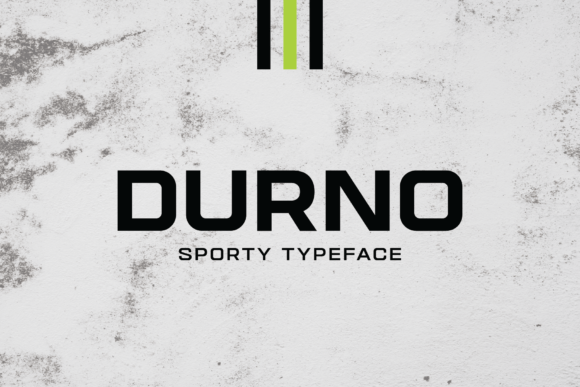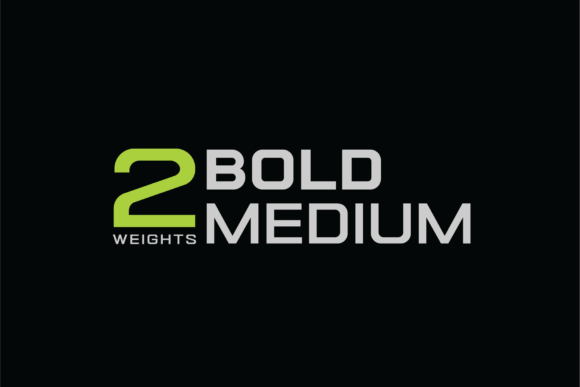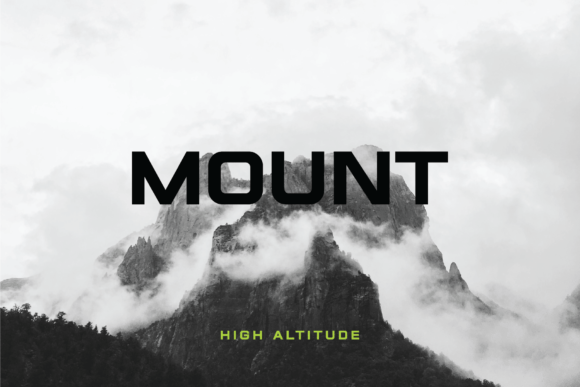
Durno Font: A Bold Display Font for Modern Logo Design
About the Durno Font
Crafted with precision, the Durno Font is ready to bring your ideas to life. Durno is a modern futuristic font, that features wide and extended glyphs, this extended sport font is suitable for your projects like logo designs, social media posts, banners, posters, headers, etc.
Durno excels in large-scale applications such as headlines, posters, and branding where its bold, futuristic forms command attention. Its extended glyphs make it particularly effective for short, impactful statements. Avoid using Durno for body text or lengthy paragraphs; its wide letterforms reduce readability at smaller sizes.
The font’s inherent boldness pairs well with clean, minimalist sans-serif fonts like Helvetica or Open Sans for a balanced contrast. For a more playful feel, consider pairing it with a rounded geometric sans-serif. Using it with a delicate script font would create unexpected visual interest, particularly for logos or invitations that require a touch of elegance.
Durno projects a modern, confident personality, ideal for tech brands, sportswear, and other ventures aiming for a cutting-edge image. Its strong visual presence conveys authority and innovation.